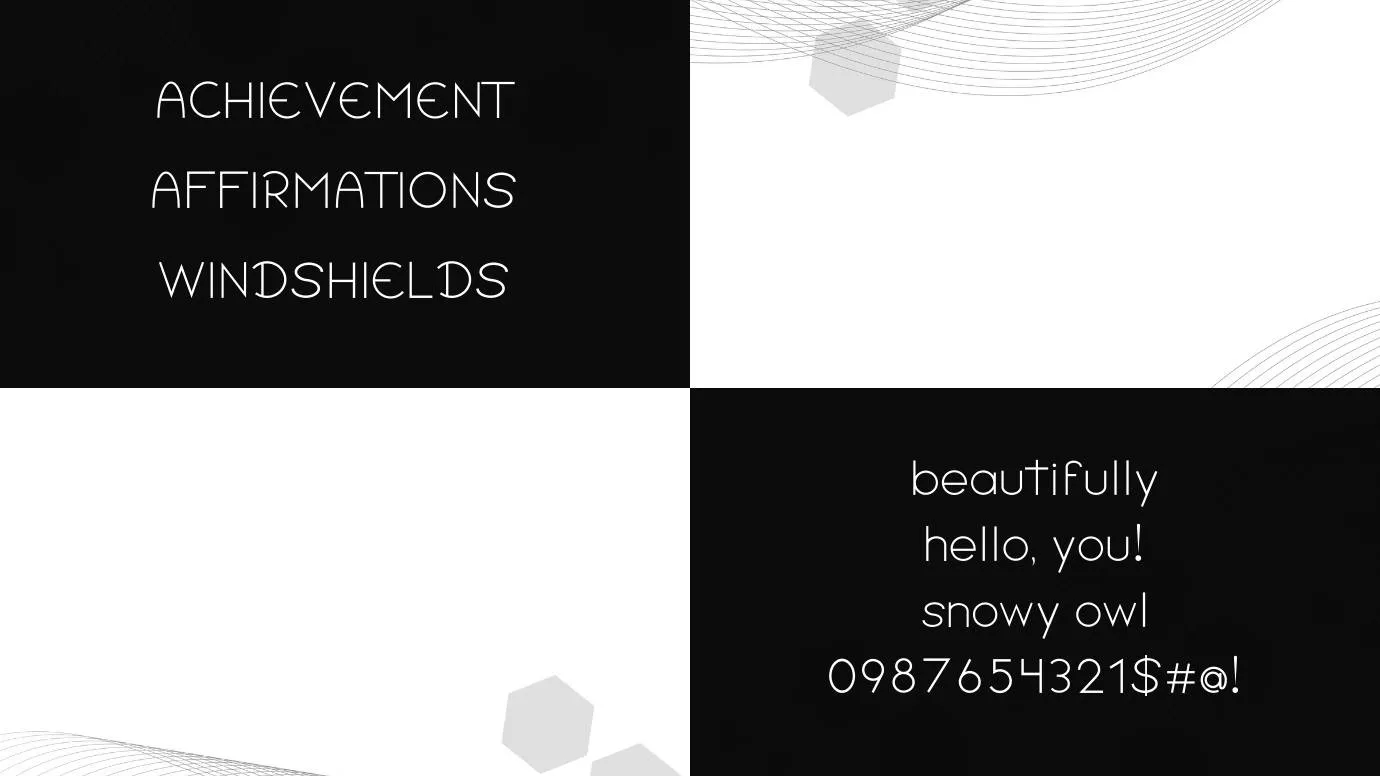
The texturing of the style is great for working on various creative projects like making logos, websites, print material, books, magazine covers, posters, advertising, and much more.
Designer of Doubt Font
The designer of the beautiful typeface is Of. Amar. He is a famous graphic designer who has been in this field for a very long time which shows in his work.
Doubt Font Family Includes
The stunning typeface comes in different weights and styles. It includes a wide range of Latin-based language support with a mixture of different characteristics. Here is the list of the following styles:
- Doubt Regular
- Doubt Bold
- Doubt Italic
- Doubt Light
- Doubt Medium
View of Doubt Font
Doubt Font Details
| Name | Doubt Font |
| Designer | Of. Amar |
Where can I use the Doubt typeface in my project?
The texturing of the style is great for working on various creative projects like making logos, websites, print material, books, magazine covers, posters, advertising, and much more.
Who is the designer of Doubt Texture?
The designer of the attractive typeface is Of. Amar. He is a famous graphic designer who has been in this field for a very long time which shows in his creative work.